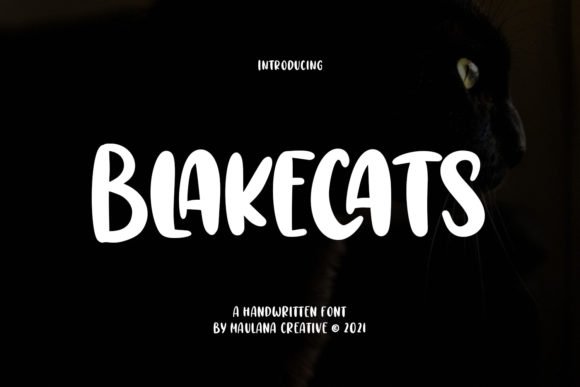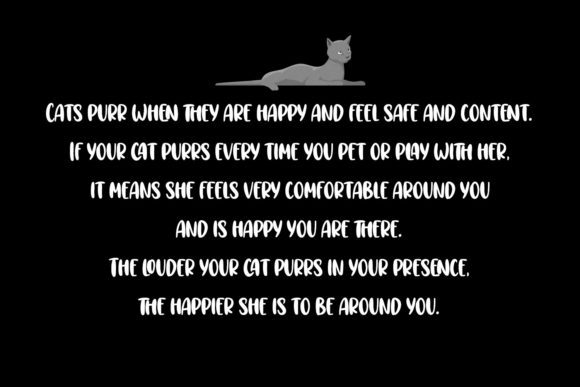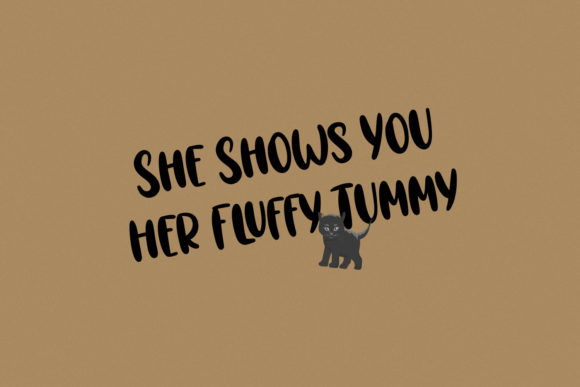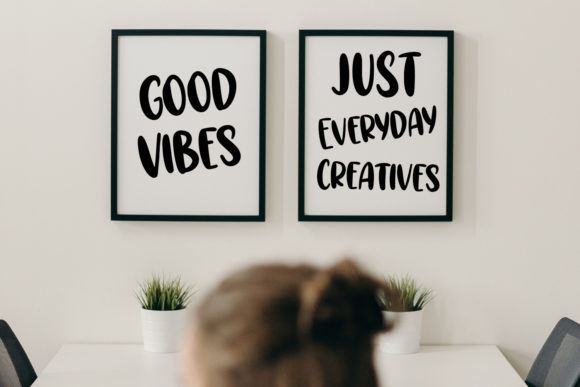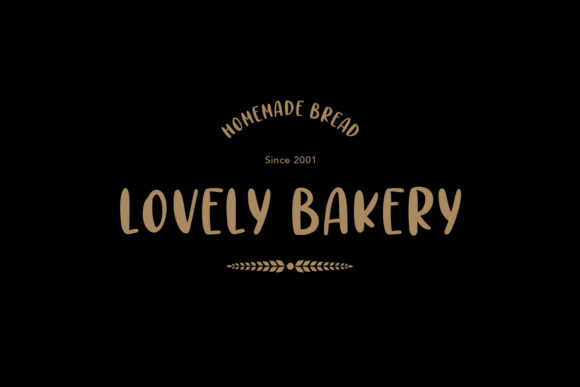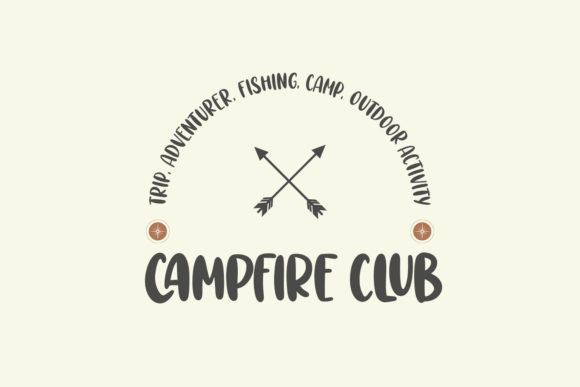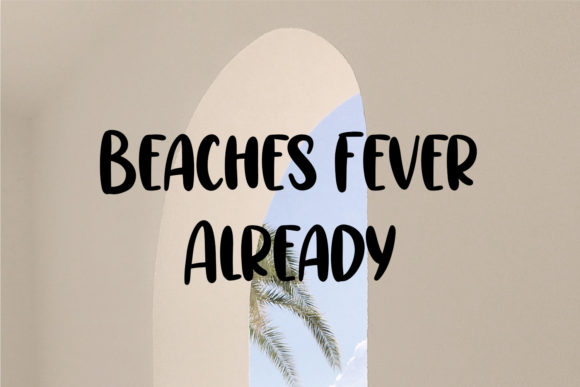
Stand Out with the Blakecats Font
Do you remember the moment when you finally nailed the perfect design for your project? The excitement, the pride, and the sense of accomplishment? That’s exactly what happens when you add the right touch to your creative ideas. For designers, finding the perfect font can make all the difference in making their work truly stand out.
That’s where the Blakecats Font comes in – a cool and bold display font designed to capture attention and elevate your designs. Whether you’re creating a logo, social media graphics, or even a promotional poster, Blakecats Font is the perfect addition to make your ideas pop. Its unique style and versatility make it a valuable tool for designers looking to take their work to the next level.
With Blakecats Font, you’ll be able to add a touch of sophistication and creativity to your designs, setting you apart from the crowd. So, why settle for ordinary when you can have extraordinary? Try adding the Blakecats Font to your next project and see the difference for yourself.
Blakecats Font Key Features
- Font Family: Blakecats is a unique, hand-drawn font with a playful and whimsical feel.
- Character Set: Supports a wide range of characters, including uppercase and lowercase letters, numbers, and punctuation.
- Unique Characteristics: Blakecats features a distinctive, hand-painted look with irregular brushstrokes and subtle texture, making it ideal for creative and artistic applications.
Blakecats Font Review
I recently had the chance to work with the Blakecats font, and I must say it’s an interesting addition to any design project. ✨ One of the things that stands out is its unique and quirky style, which can add a touch of personality to your work. The font’s brush-like strokes and irregular letterforms give it a hand-drawn feel that’s perfect for creative projects or brand identities that want to stand out.
- The font’s unique style makes it perfect for adding visual interest to headings, titles, or quotes.
- It’s also great for creating a playful and lighthearted atmosphere in your design.
However, there are some limitations to consider: ⚠️ The Blakecats font may not be the best choice for large blocks of text, as its irregular letterforms can make it difficult to read. Additionally, the font’s unique style may not be to everyone’s taste, and it may not be suitable for more formal or traditional designs.
Overall, I think the Blakecats font is a great addition to any designer’s toolkit, especially for projects that require a touch of creativity and personality. While it may have some limitations, its unique style and customization options make it a great choice for designers who want to add a little extra something to their work.
Tips for Getting the Most Out of Blakecats Font
- Use Blakecats Font for titles and headings to add a touch of elegance.
- Combine Blakecats Font with other fonts for a unique and creative look.
Pacifico is a modern, elegant script font perfect for headings, titles, and other decorative text. It has a more relaxed and casual look compared to Blakecats Font, which is more energetic and playful. Use Pacifico for projects that require a touch of warmth and sophistication.